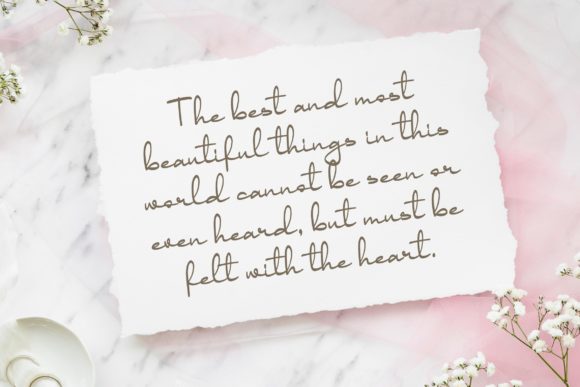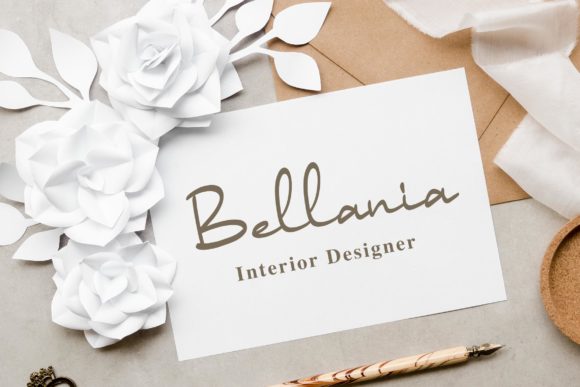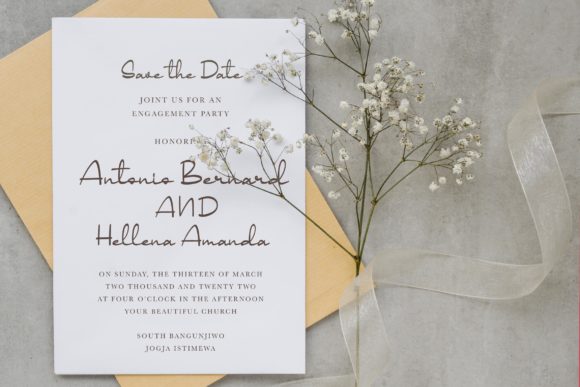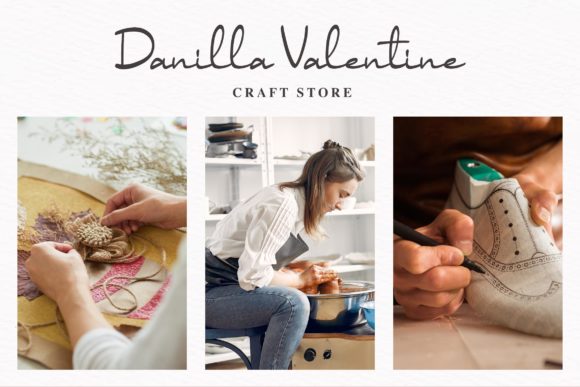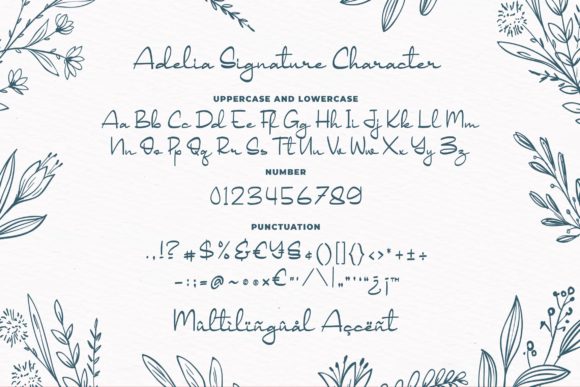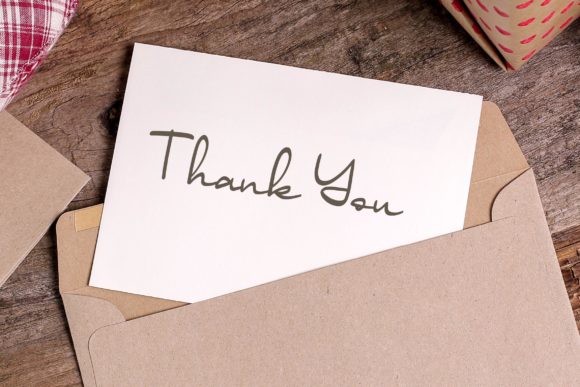
Introducing Adelia Signature Font: Elevate Your Creativity with a Cute and Relaxed Handwritten Style
Are you on the hunt for a font that can add a personal touch to your creative projects? Look no further than Adelia Signature Font, a beautiful handwritten script that is sure to capture your audience’s attention. This lovely font boasts a unique blend of elegance and playfulness, making it perfect for a wide range of applications, from social media graphics to DIY crafts.
What Makes Adelia Signature Font So Special?
Adelia Signature Font is a stunning example of modern calligraphy, featuring gorgeous swashes and ligatures that give it a truly unique character. The font’s relaxed, handwritten style makes it feel approachable and friendly, while its versatility ensures that it can be used in a variety of contexts. Whether you’re a designer looking for a font to use in your next project or a crafter seeking a script to add a personal touch to your DIY creations, Adelia Signature Font is an excellent choice.
Key Features of Adelia Signature Font
- Cute and Relaxed Handwritten Style: Adelia Signature Font features a beautiful, laid-back script that is perfect for adding a personal touch to your creative projects.
- Gorgeous Swashes and Ligatures: The font’s stunning swashes and ligatures give it a truly unique character, making it stand out from other scripts.
- Versatile: Adelia Signature Font can be used in a wide range of applications, from social media graphics to DIY crafts, making it a great addition to any designer’s or crafter’s toolkit.
Adelia Signature Font is a dream come true for designers and crafters alike. Its unique blend of elegance and playfulness makes it perfect for a wide range of creative projects, including:
- Social Media Graphics: Add a personal touch to your Instagram posts and stories with Adelia Signature Font.
- DIY Crafts: Use Adelia Signature Font to add a special touch to your handmade crafts, such as journals, planners, and gift tags.
- Calligraphy Projects: Adelia Signature Font is perfect for calligraphy projects, such as creating beautiful quotes and phrases.
- Experiment with Different Sizes and Colors: Adelia Signature Font looks great in a variety of sizes and colors, so don’t be afraid to experiment and find the perfect combination for your project.
- Use Swashes and Ligatures: The font’s gorgeous swashes and ligatures are a key part of its charm, so be sure to use them to add a special touch to your project.
- Pair with Other Fonts: Adelia Signature Font pairs well with a variety of other fonts, so feel free to experiment with different combinations to find the perfect look for your project.
Adelia Signature Font is a beautiful, versatile script that is perfect for designers and crafters alike. Its unique blend of elegance and playfulness makes it a great choice for a wide range of creative projects, from social media graphics to DIY crafts. With its gorgeous swashes and ligatures, Adelia Signature Font is sure to turn any creative idea into a true piece of art!